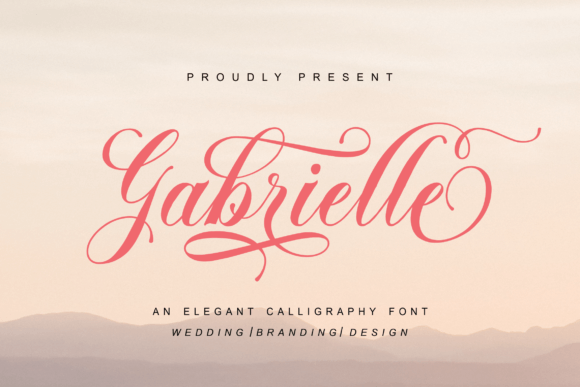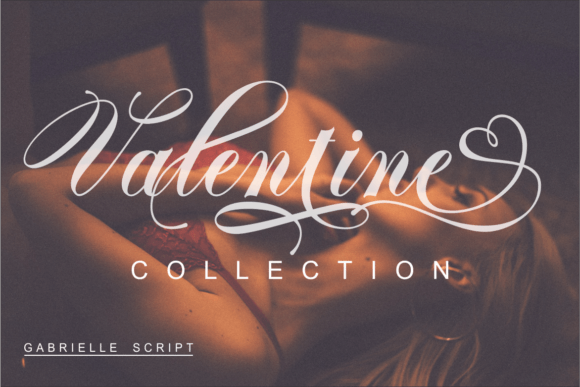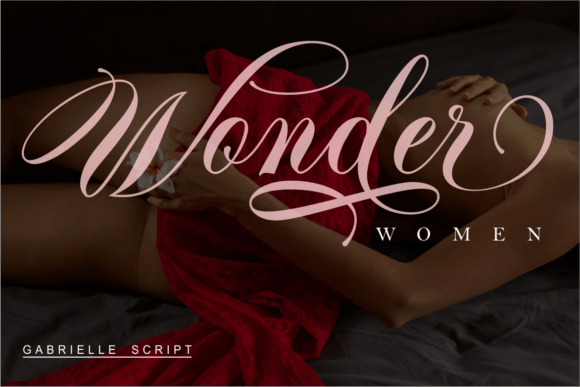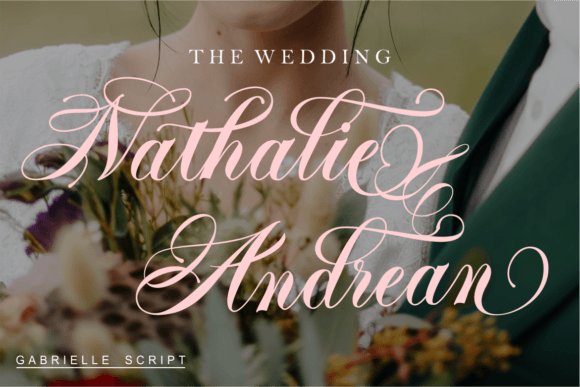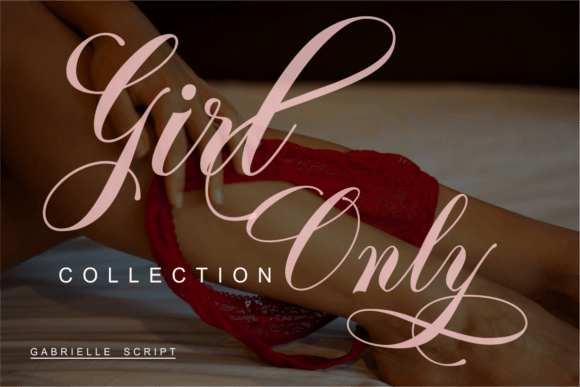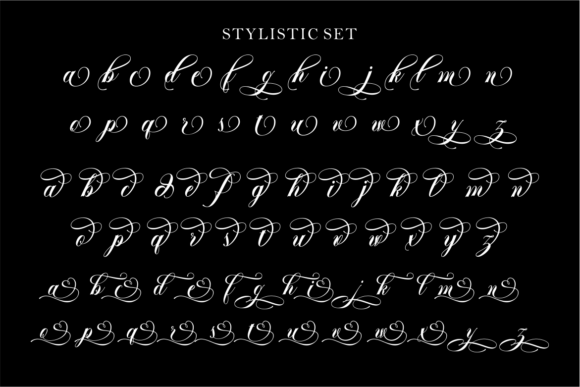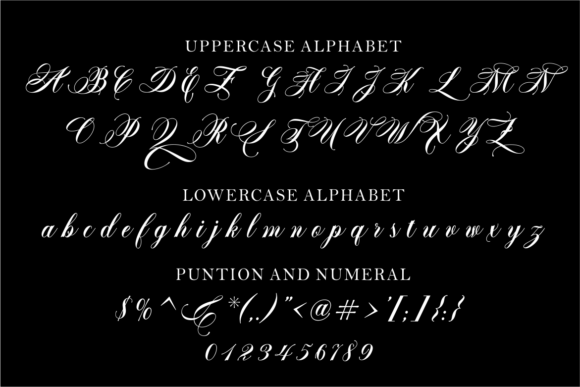
About Gabrielle Font
Gabrielle Font is a beautiful calligraphy script that radiates romance and exquisite elegance. Designed to add a sophisticated and artistic touch, Gabrielle is perfect for your most creative projects, including wedding invitations, branding, and special event designs. Its flowing strokes and decorative swashes bring a timeless, graceful feel that enhances any design.
Romantic and Exquisite Style
Gabrielle features delicate, flowing letterforms that combine classic calligraphy with a modern flair. The font’s romantic character is perfect for creating stunning visuals that evoke emotion and charm. With its elegant curves and beautiful glyphs, Gabrielle adds sophistication and personality to your work.
Ideal Uses for Gabrielle Font
This versatile script font is great for:
Wedding and event invitations
Logos and brand identities
Greeting cards and thank-you notes
Editorial layouts and magazine covers
Social media graphics and digital marketing
Personalized stationery and packaging
Gabrielle enhances any project with its romantic and elegant style.
Why Choose Gabrielle Font?
Designers love Gabrielle for its:
Romantic and exquisite calligraphy strokes
PUA encoding for easy access to glyphs, swashes, and alternates
Versatility across print and digital applications
These features make Gabrielle a practical and beautiful font choice.
Add Romance and Elegance to Your Designs
Typography shapes your project’s mood, and Gabrielle offers a graceful and romantic personality. Whether for weddings, branding, or editorial work, this font adds charm and sophistication to your designs.
In summary, Gabrielle Font is a romantic and exquisite calligraphy script perfect for designers seeking elegance and creativity. PUA encoded for full glyph access, Gabrielle is ideal for weddings, branding, and special projects. Add Gabrielle to your font collection to create timeless and beautiful designs.